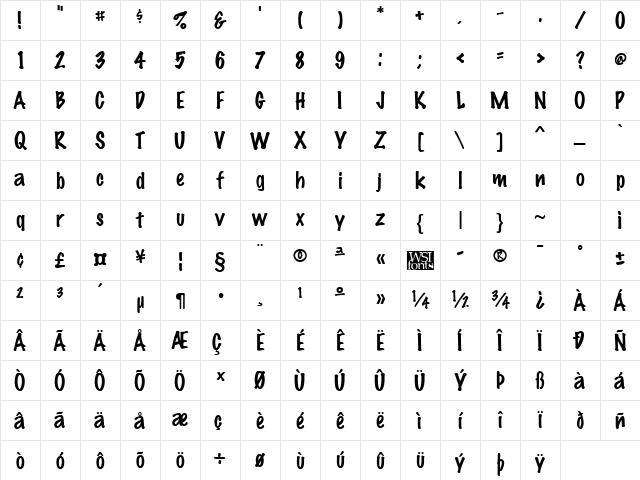
Complete MarkingPen Regular glyph index. Displaying only characters natively supported by MarkingPen Regular font.
Design Context for MarkingPen
MarkingPen is a composed and adaptable typeface that performs quietly and consistently across a wide range of design contexts.